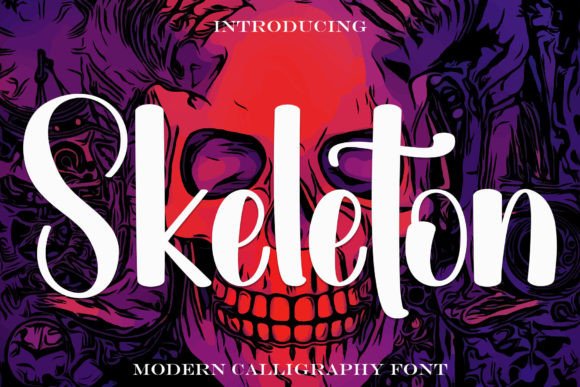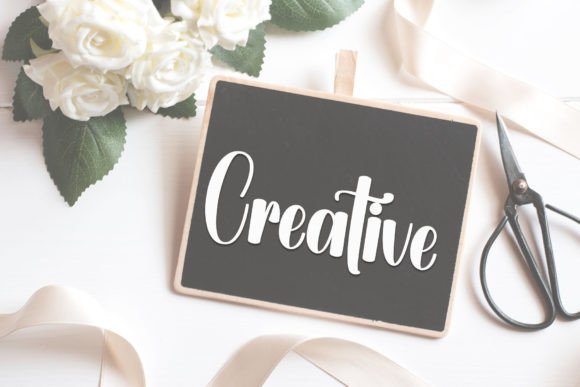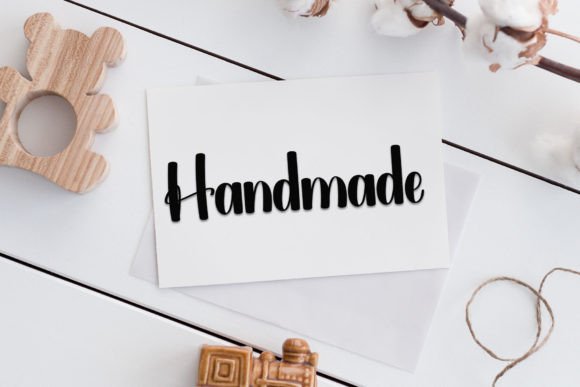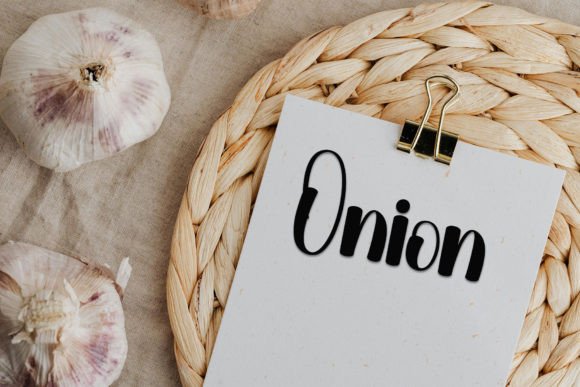
Skeleton Font
About the Skeleton Font
Welcome to the world of Skeleton Font, a typeface that will inspire your next great project. Skeleton is a fun and versatile handwritten font. Whether you’re using it for crafting, digital designing, presentations, or greeting card making, it’s perfect!
Skeleton Font Usage Examples